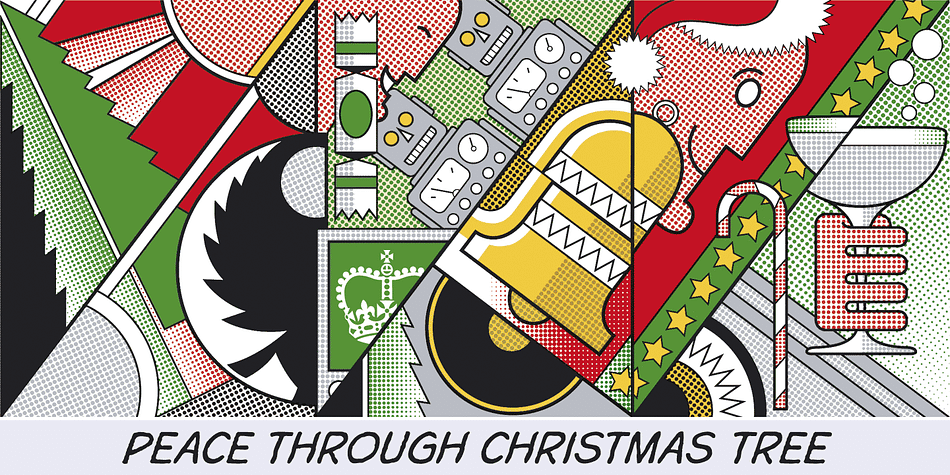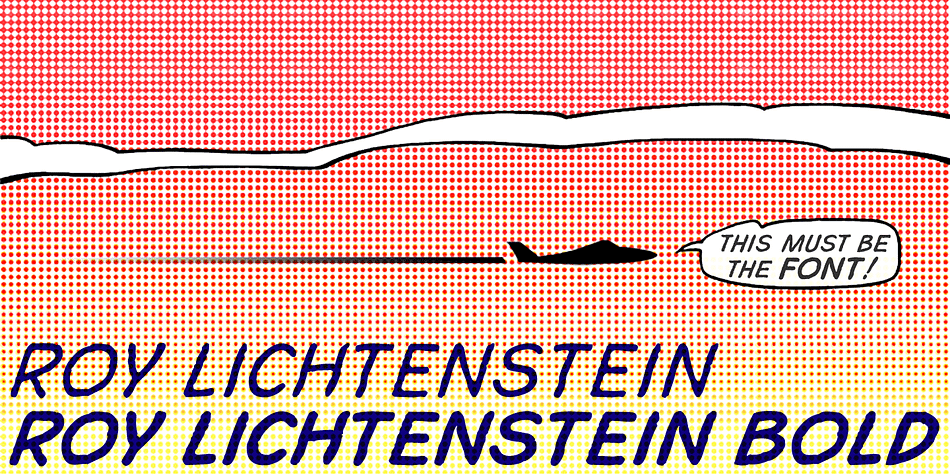
Roy Lichtenstein is a comic font family. This typeface has two styles and was published by K-Type.
Small Capitals fonts in Regular and Bold weights inspired by the painted lettering within the speech bubbles, thought balloons and narrative boxes of Roy Lichtenstein’s Pop Art canvases.